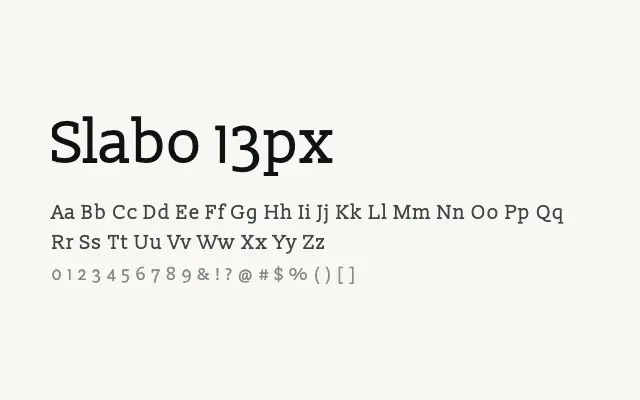
Slabo 13px
A serif typeface designed with singular purpose: to render cleanly and legibly at exactly 13 pixels on screen.
Slabo 13px is an unusual specialism in type design — a face built entirely around a single pixel size rather than broad optical flexibility. Designed by John Hudson of Tiro Typeworks, it excels in small UI text, footnotes, and interface labels where screen rendering at 13px is fixed. It is not intended for print or large display settings.
Slabo 13px is a serif typeface engineered specifically for rendering at 13 pixels on screen, with carefully tuned proportions and spacing to ensure legibility at that precise size. Its design sacrifices conventional optical harmony in favour of pixel-perfect clarity.